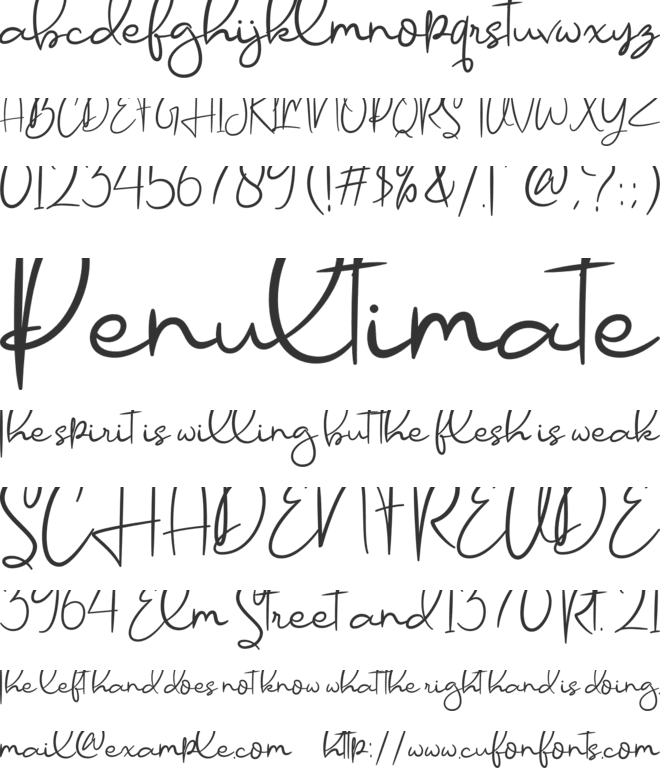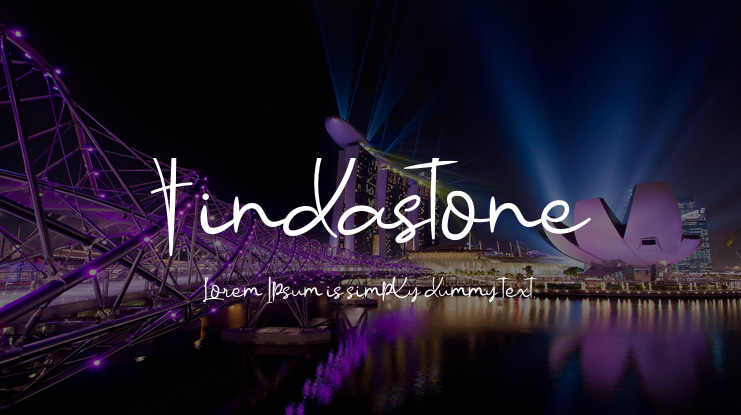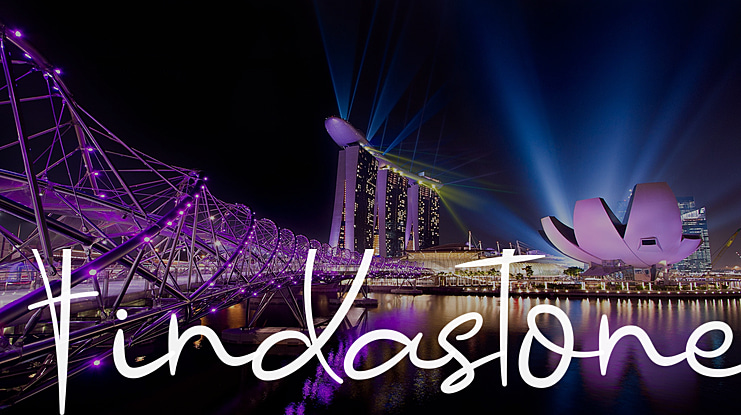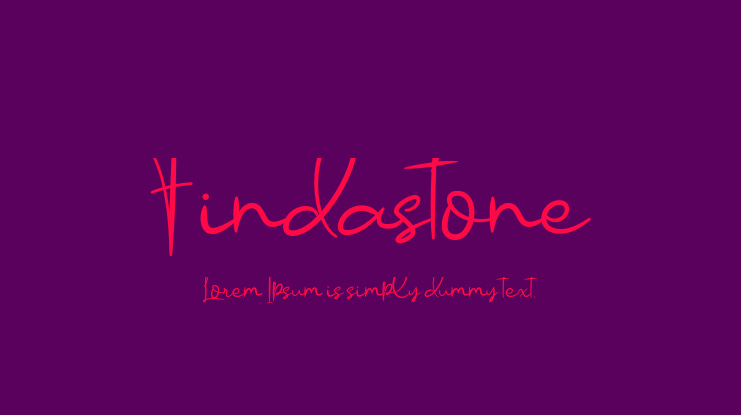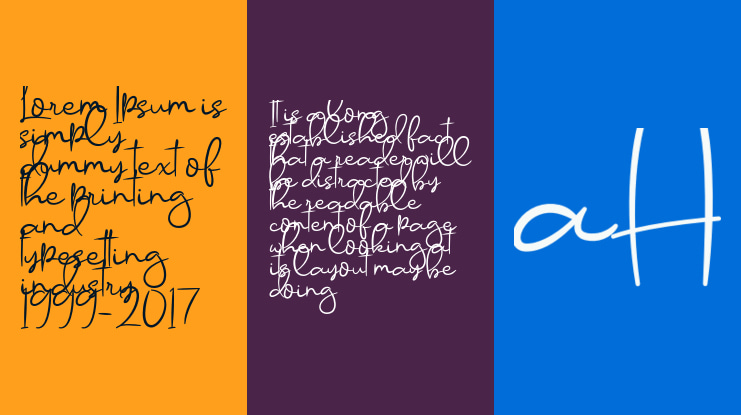
Findastone Font
Findastone is a delicate and fine script font. It can be applied to a variety of design ideas, from invitations, to cards and pretty much anything that requires a lovely touch.